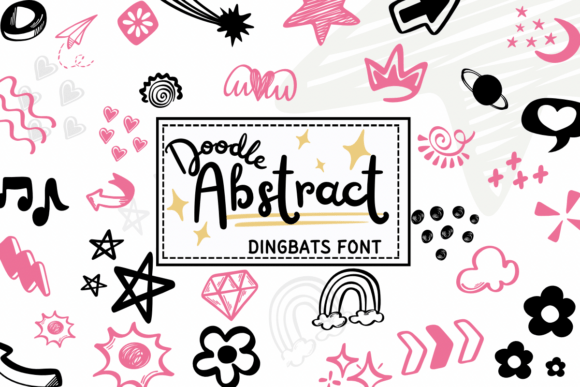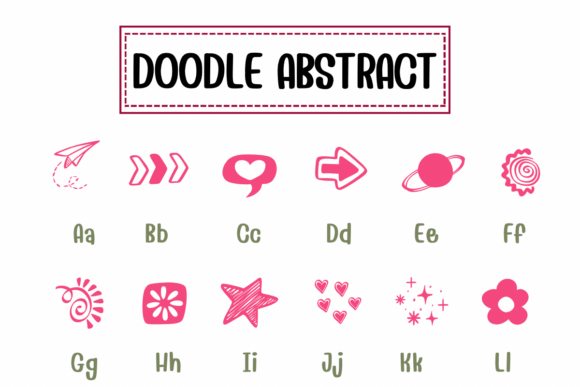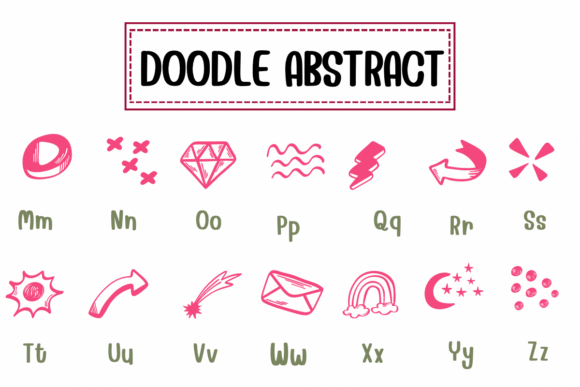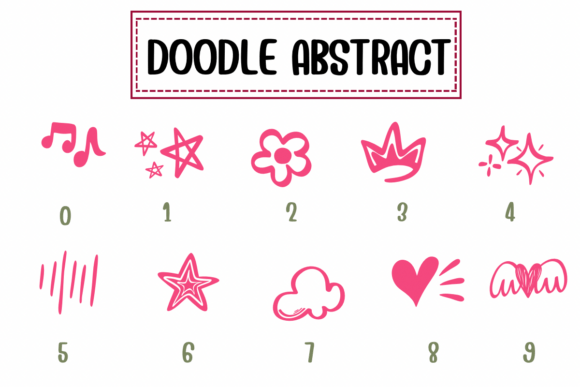
Doodle Abstract Font
About the Doodle Abstract Font
Meet Doodle Abstract Font, a stunning font that brings a touch of elegance and professionalism to any design. Doodle Abstract is a dingbats font with an abstract theme. This font can enhance your creative projects such as wedding invitations, DIY, crafts, decorations, logos, and many other creative ideas.
Doodle Abstract’s playful, hand-drawn aesthetic makes it ideal for projects requiring a lighthearted and creative touch. It excels in logo design, short headlines, and packaging where its unique character can shine. However, its highly decorative nature makes it unsuitable for body text or UI elements; readability suffers at smaller sizes.
Pairing it with a clean sans-serif like Open Sans for body text provides excellent contrast, balancing the whimsical nature of Doodle Abstract. For a more sophisticated feel, consider pairing it with a classic serif such as Garamond or a minimalist geometric sans-serif such as Montserrat. These pairings offer visual stability and prevent the design from feeling overly cluttered.
The overall personality is best described as quirky and fun, bringing a handmade, slightly unconventional energy to any design. This makes it a perfect fit for brands focused on creativity, children’s products, or artisanal goods.
Doodle Abstract Font Example